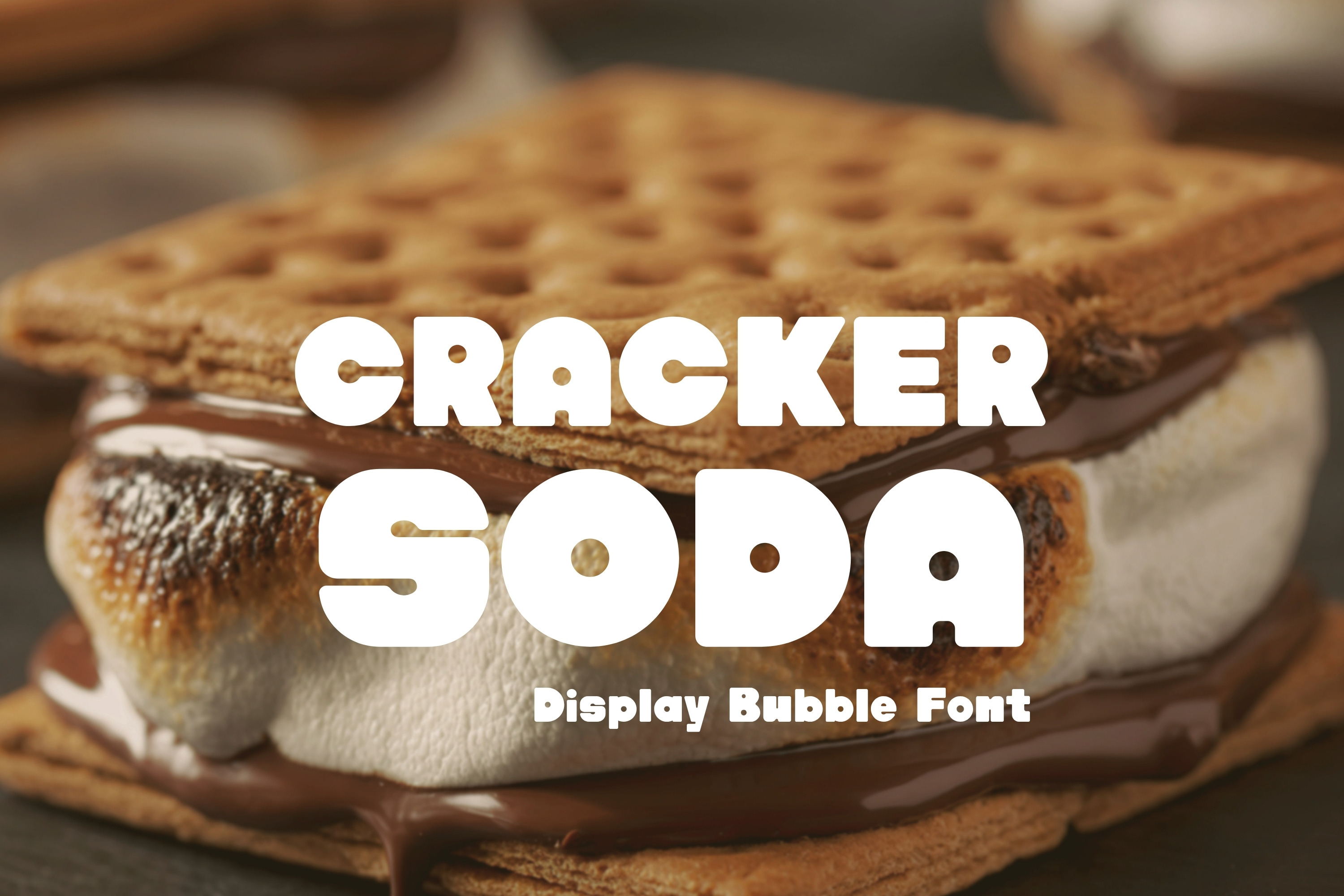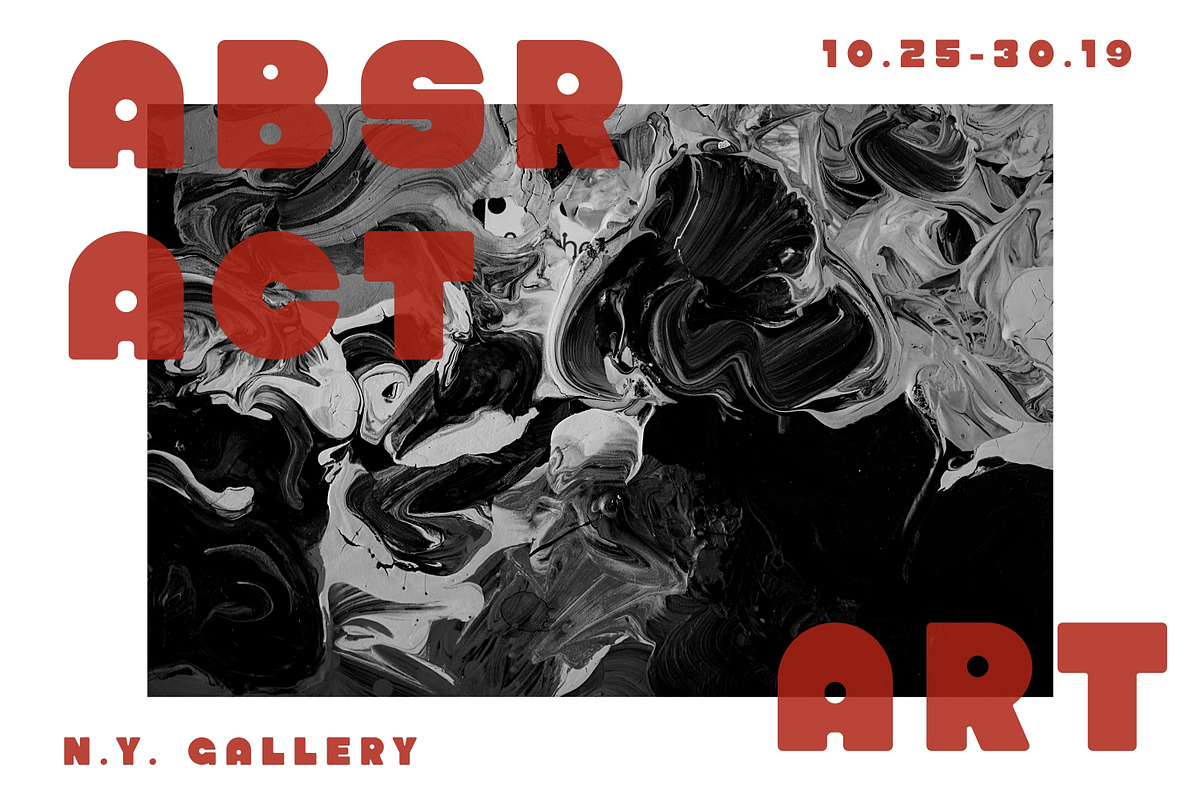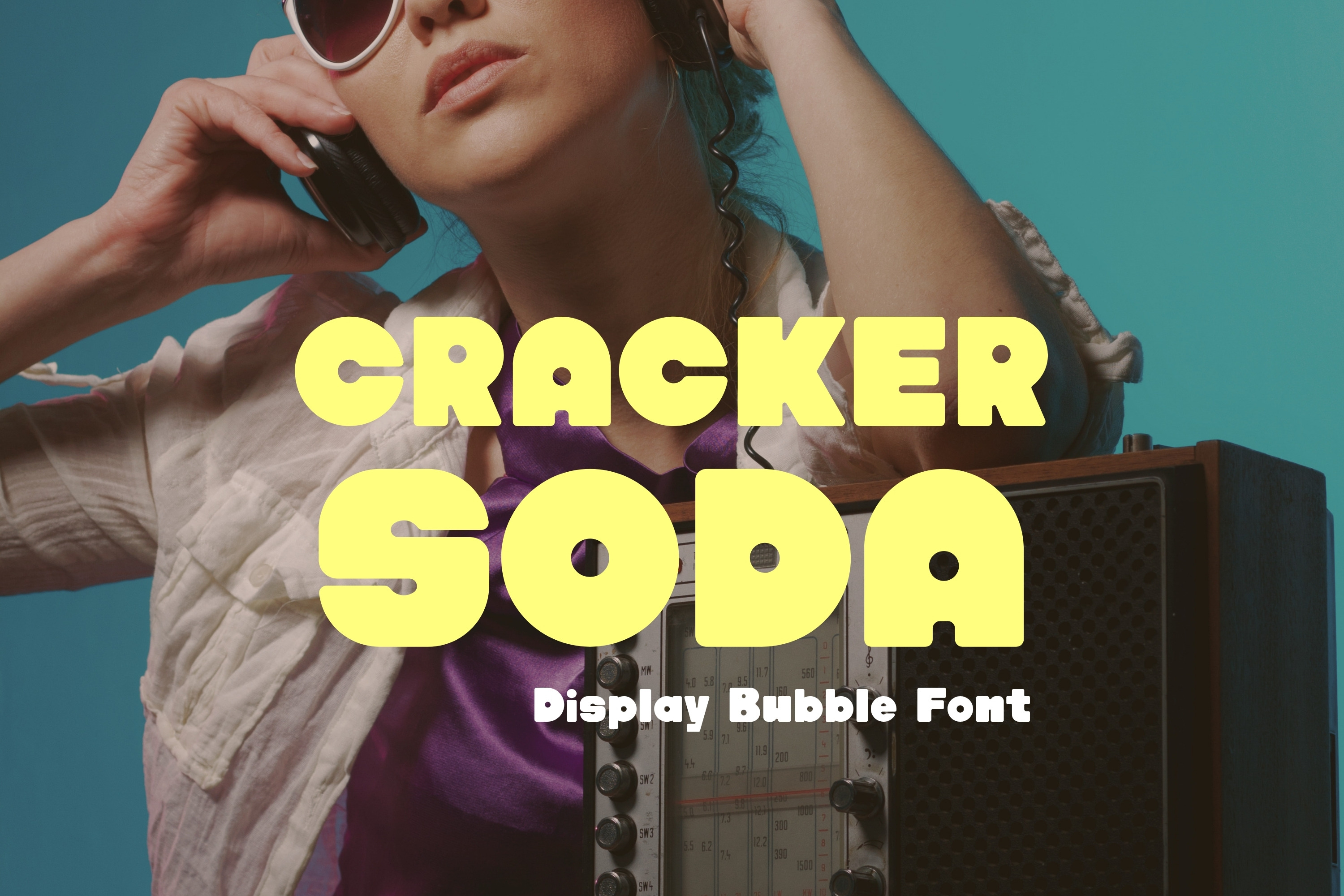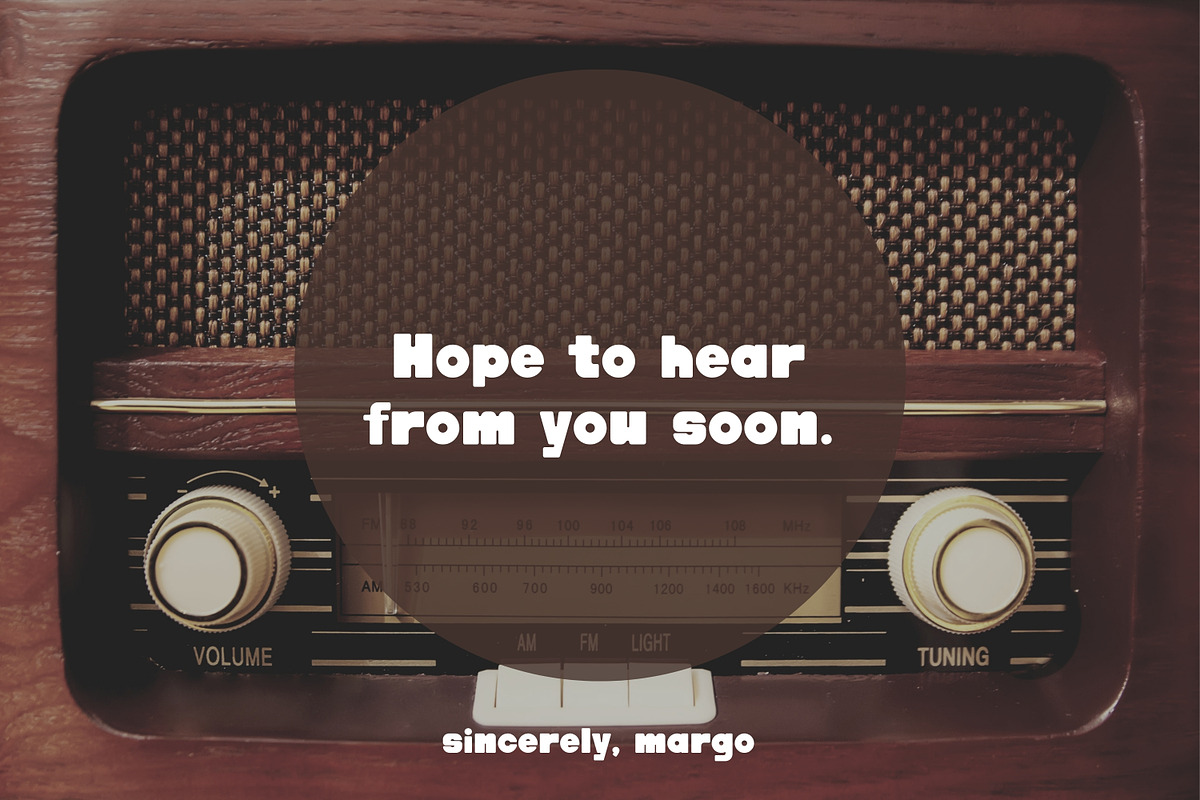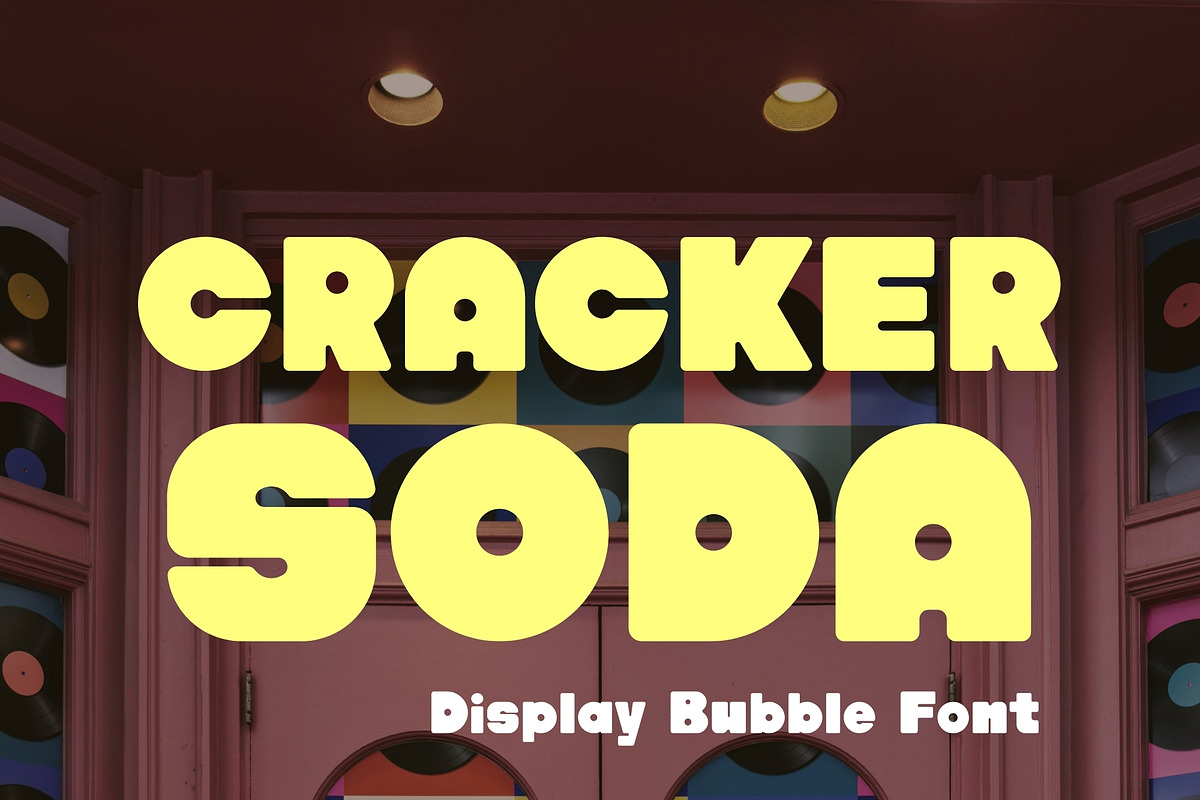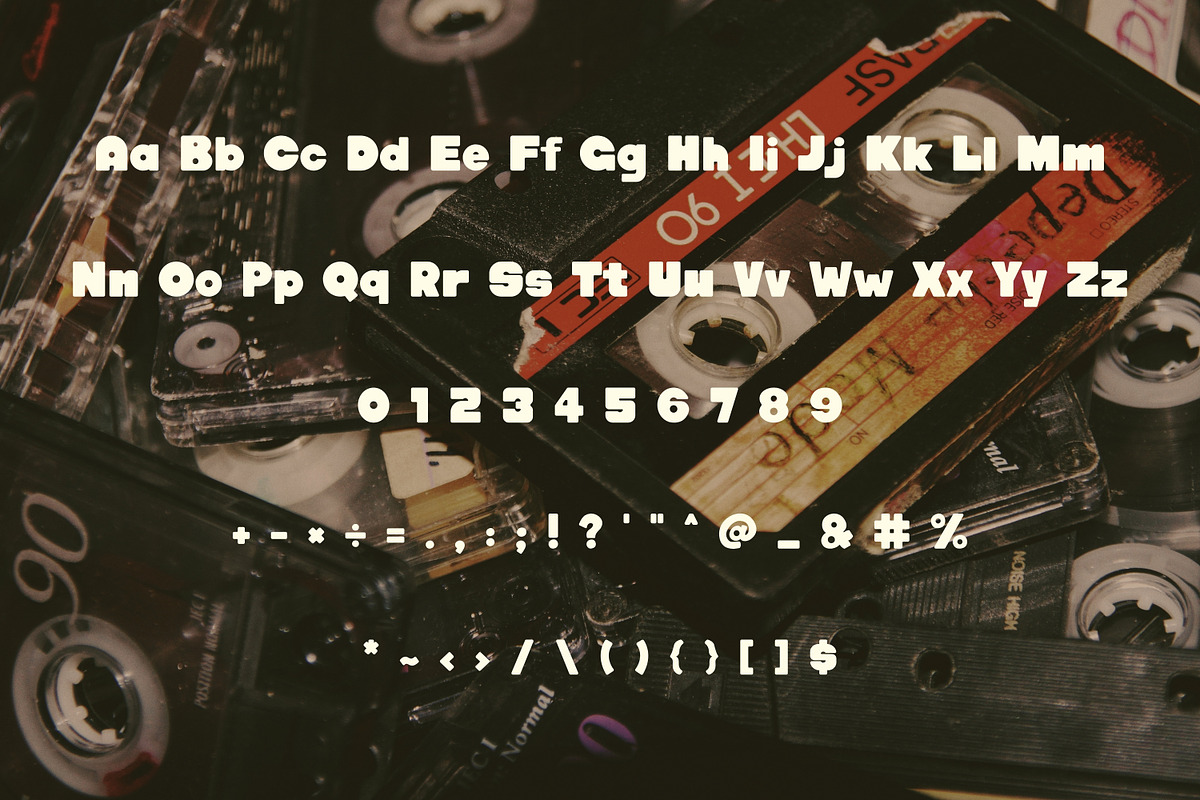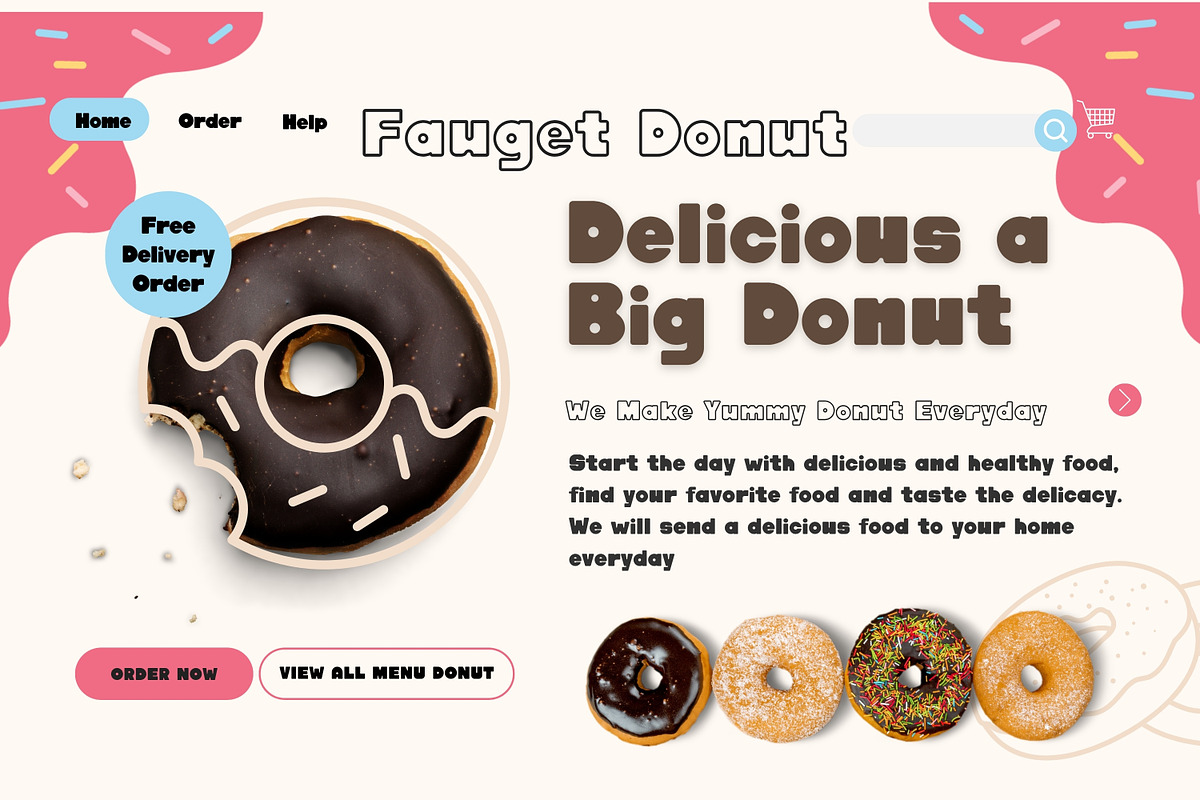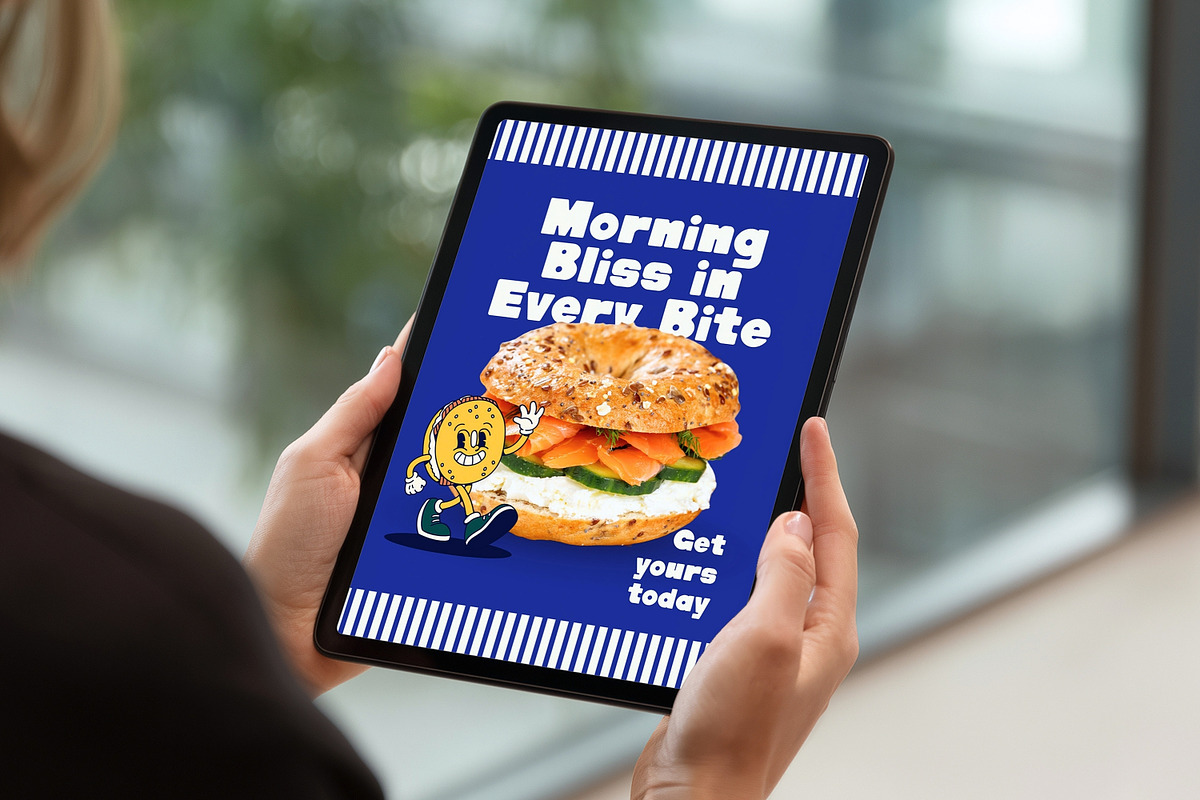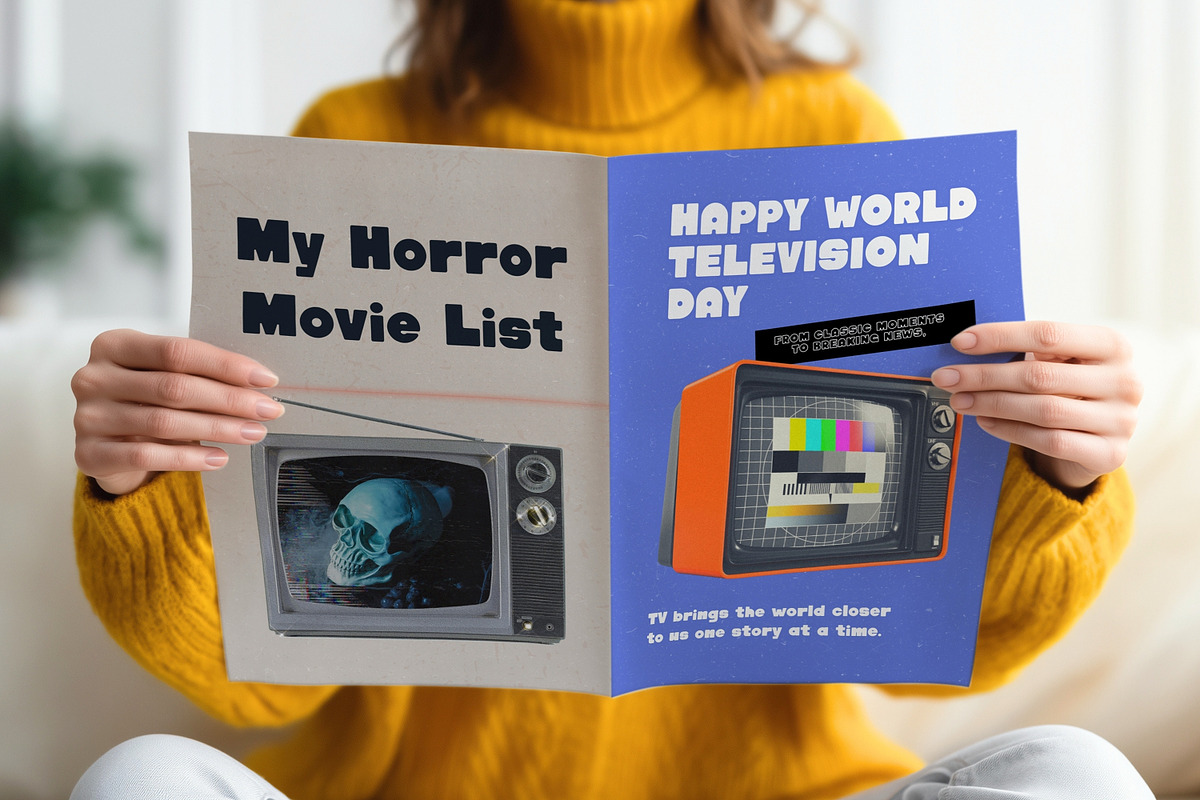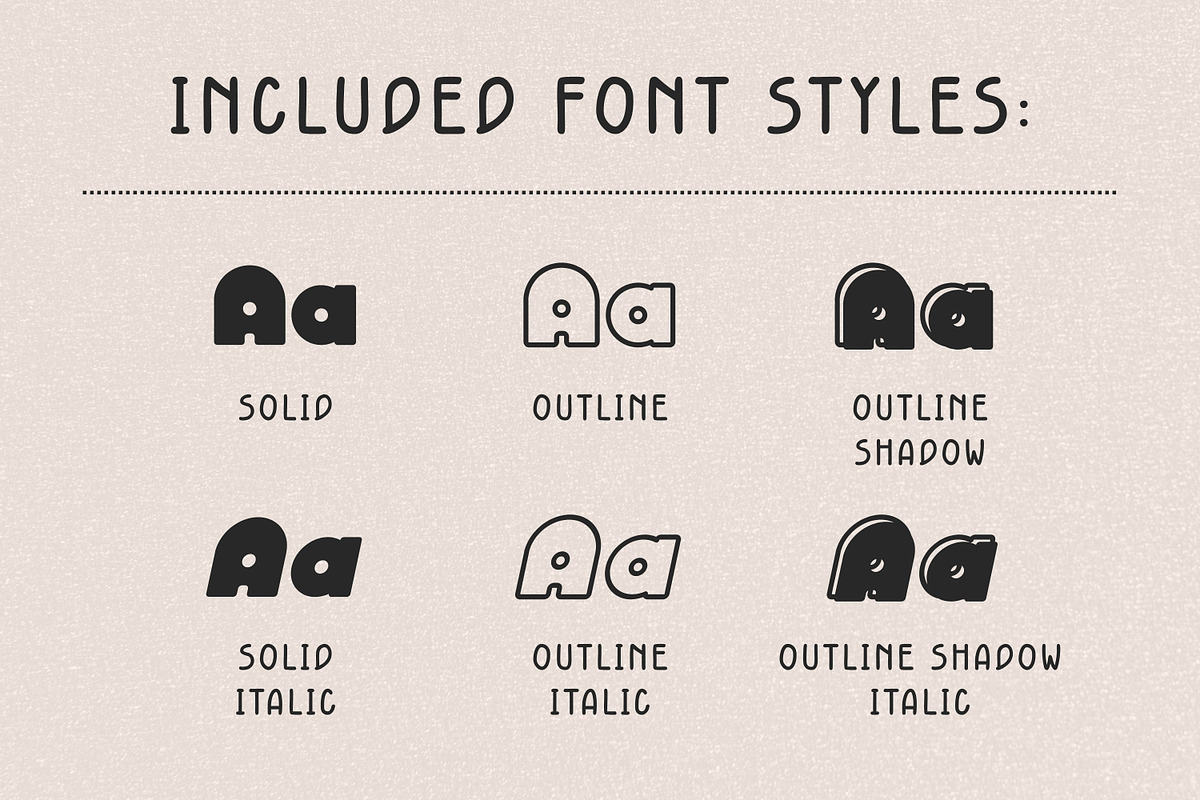
Bubble Display Font - Cracker Soda
✨ Bring bold retro energy to your designs with Cracker Soda Font – a chunky, groovy bubble typeface inspired by vintage 70s style!
Cracker Soda font, 6 style (solid, solid italic, outline, outline italic, outline shadow, outline shadow italic) : OTF, TTF, WOFF, WOFF2, SVG